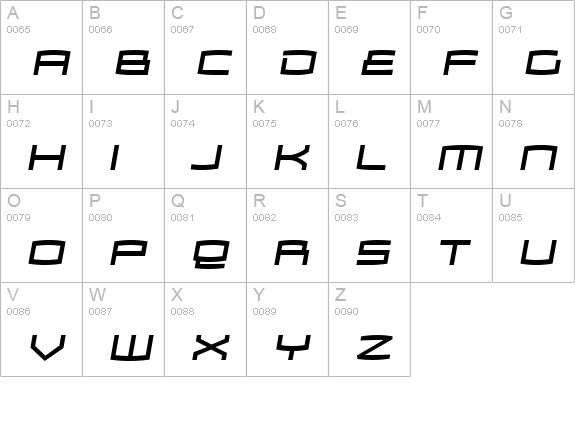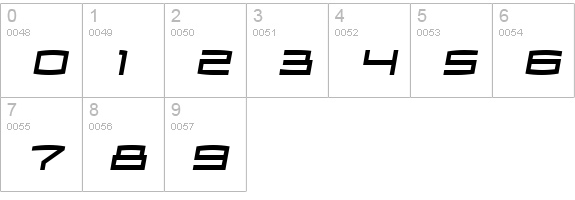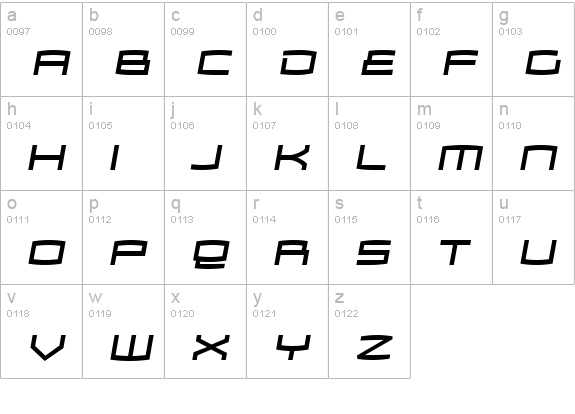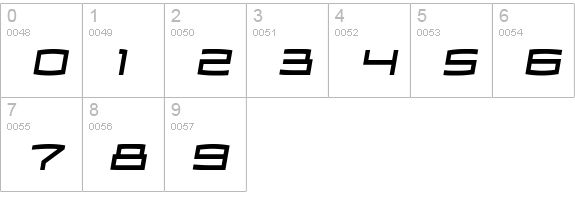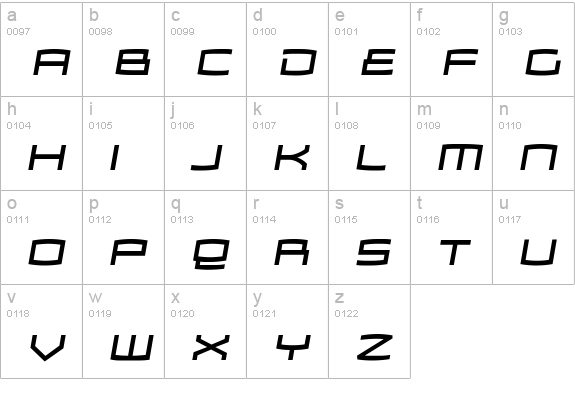
Zosma Italic Font Details
Zosma Italic is a distinctive, italic variant in the Zosma typeface family \xE2\x80\x94 well suited to design and typography projects.
Zosma Italic is a sophisticated and elegant font that exudes a sense of modernity and style. Its sleek and refined design makes it perfect for a wide range of projects, from branding to editorial design. The italicized style adds a touch of flair and sophistication, making any text look more dynamic and engaging. What makes Zosma Italic even more appealing is that it is available for free download at FontsMarket.com. This means that you can easily access this beautiful font without any cost, making it a valuable addition to your design toolkit. Whether you're working on a personal project or a professional assignment, Zosma Italic is sure to elevate your work with its contemporary and versatile look. Download it now and enhance your designs with this stunning typeface.